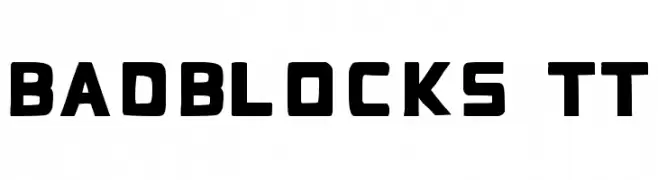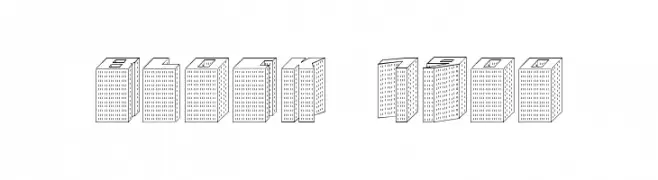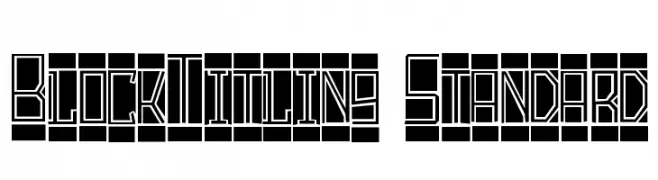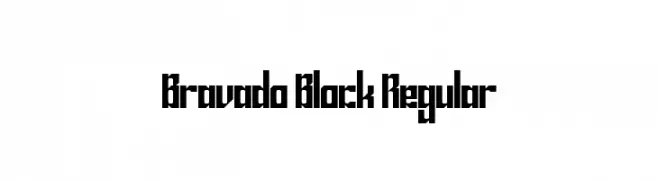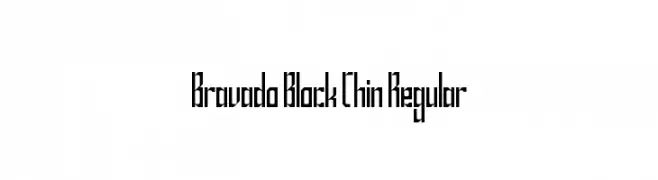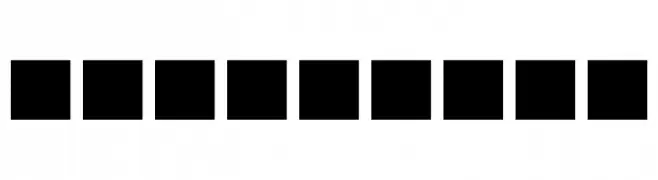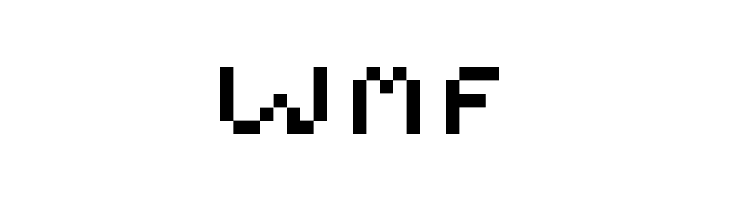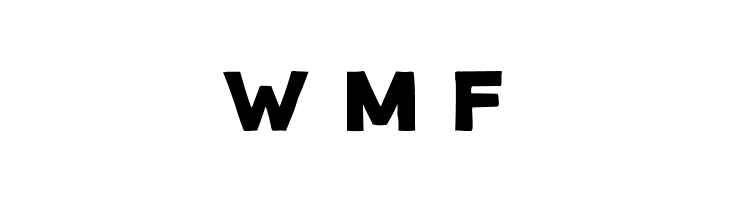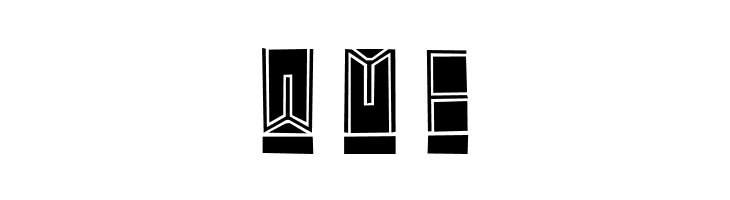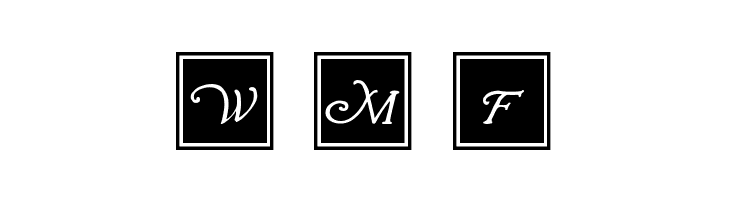
A bold, three-dimensional block font with a modern, impactful style.
A bold, geometric font with a blocky, digital appearance.
A bold, geometric sans-serif font with a blocky design.
A bold, blocky font with thick, uniform strokes and a strong geometric influence.
A bold, grungy font with a dripping, horror-inspired aesthetic.
A bold, hand-drawn font with a textured, block-like appearance.
A pixelated, block-style font with a digital, retro aesthetic.
A bold, geometric font with angular lines and a modern, industrial aesthetic.
A playful, block-style font with bold, uppercase letters in 3D blocks.
A bold, blocky, hand-drawn font with a strong geometric style.
A bold, geometric font with a modern, industrial style.
A bold, angular font with an industrial, Eastern Bloc aesthetic.
A bold, blocky font with a shadow effect for a 3D look.
A bold, italicized font with a block shadow effect for a dynamic, 3D look.
A bold, 3D block font with a geometric and angular design.
A bold, geometric font with a staggered, block-like design.
A bold, italicized block font with a futuristic and dynamic style.
A bold, geometric font with a modern, block-like design.
A bold, geometric font with angular, blocky characters.
A bold, geometric font with square, block-like shapes and a modern industrial feel.
A bold, blocky font with a digital, pixelated style enclosed in squares.
A bold, geometric font with characters enclosed in grid-like blocks, featuring circular elements.
A bold, angular font with a geometric, blocky design ideal for modern, edgy projects.
A bold, freehand block letter font with a casual, artistic style.
A bold, blocky font with hollow interiors and a geometric, modern style.
A bold, blocky font with an inverse design and geometric shapes.
A bold, italicized font with a blocky, geometric style, perfect for impactful headlines.
A bold, blocky, italicized font with a geometric and modern style.